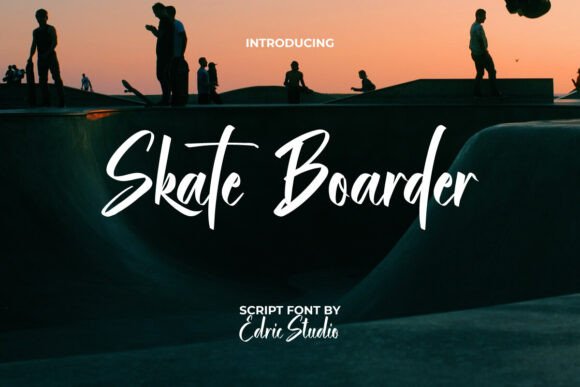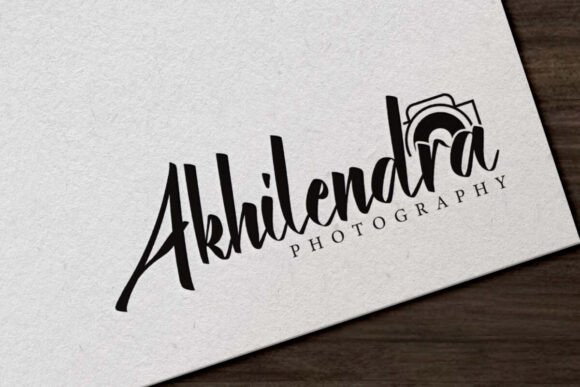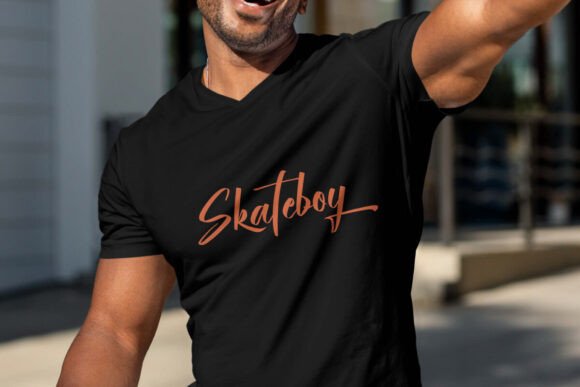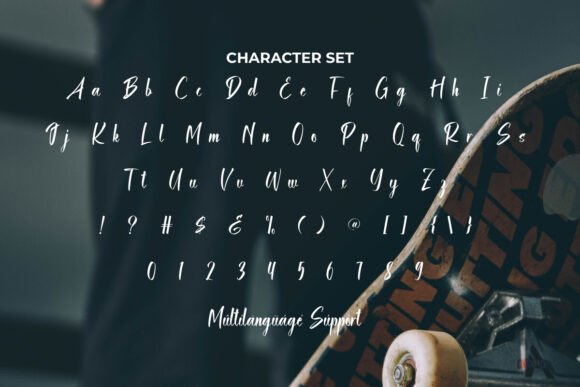
Skate Boarder Font: A Trendy Script for Branding & Social Media Design
About the Skate Boarder Font
Welcome to the world of Skate Boarder Font, a typeface that will inspire your next great project. Skate Boarder Font is a stylish calligraphy script font with a timeless looks and vibrant feel to live. This font is a blend of natural handwriting and trendy street style that can create greatness in designs, such as billboard, branding, brochure, custom design, flyer, greeting card, header, label, packaging design, poster, screen print, signage, stationery, sticker, title, website page, and more.
Skate Boarder Font Usage Examples
Skate Boarder Font Example